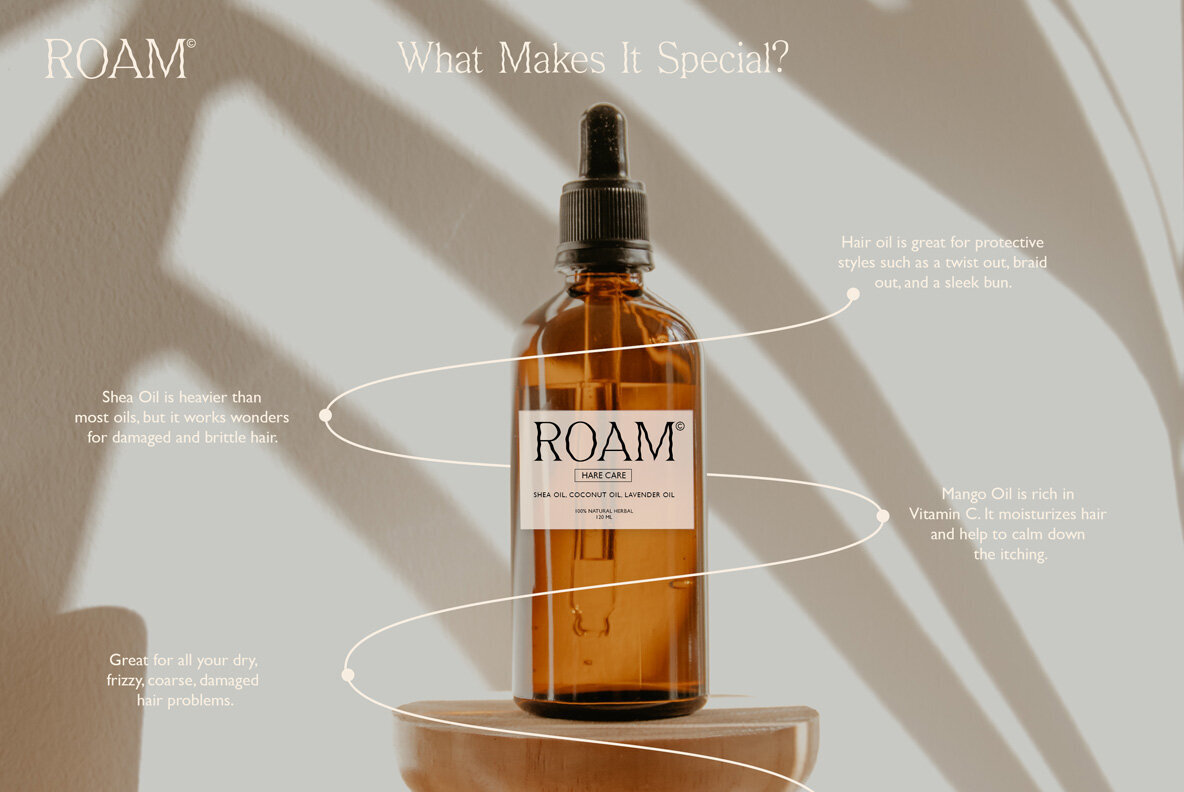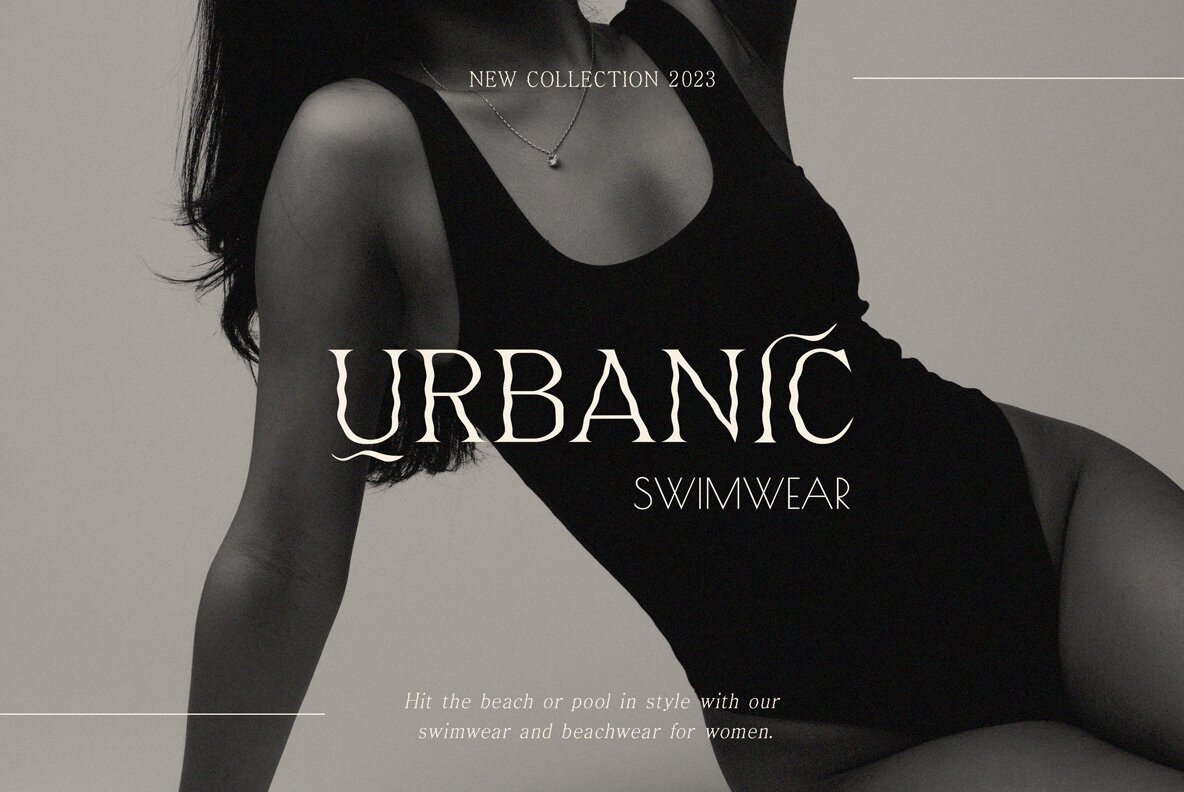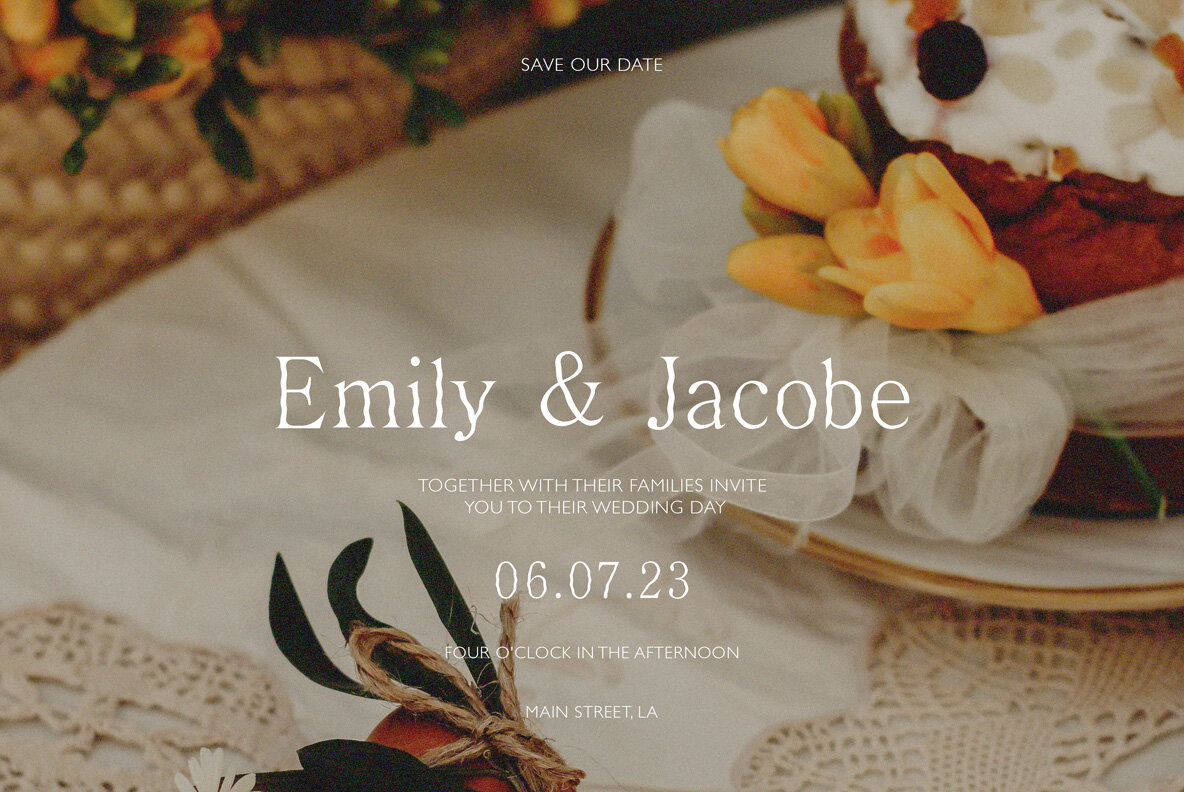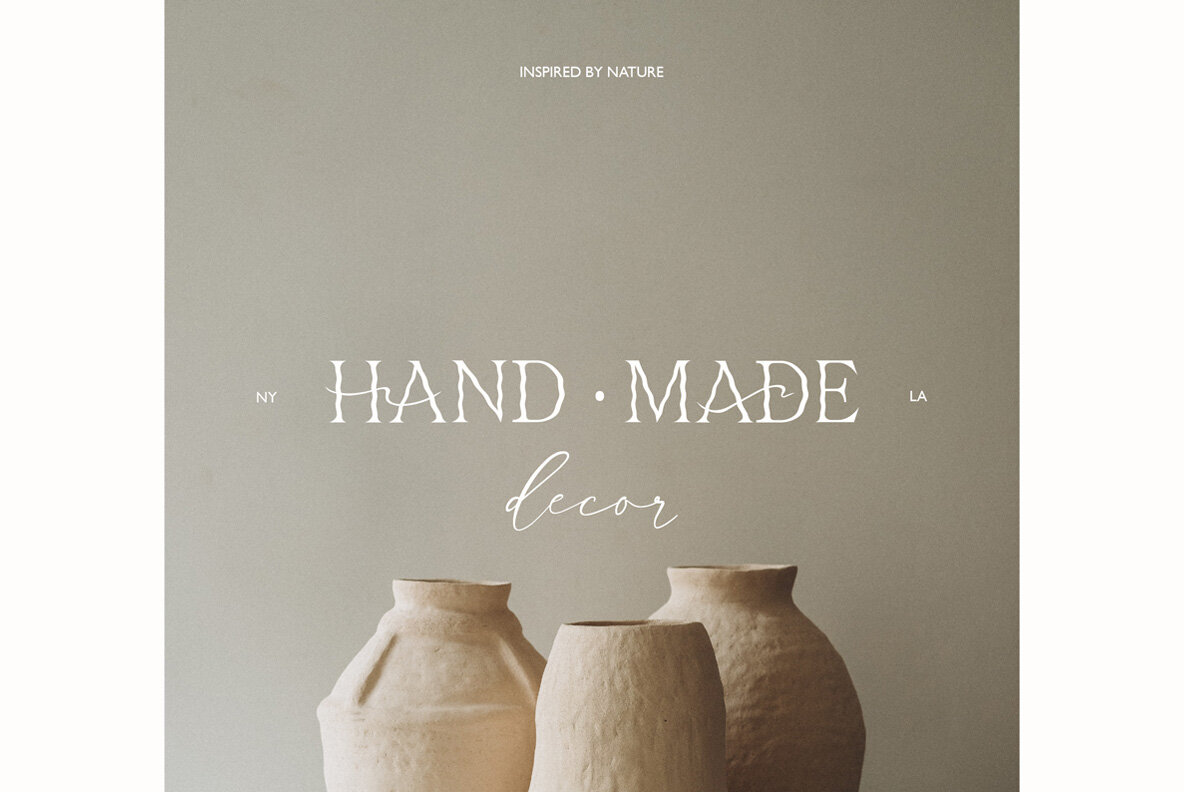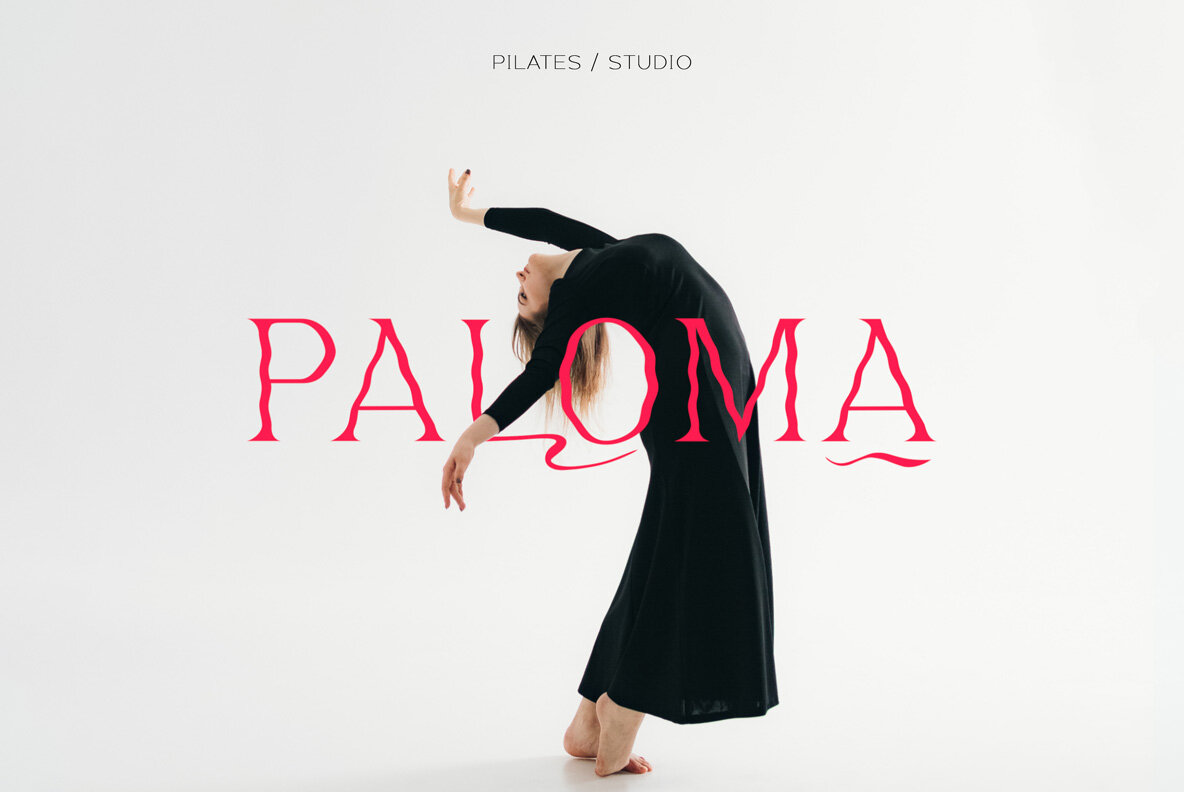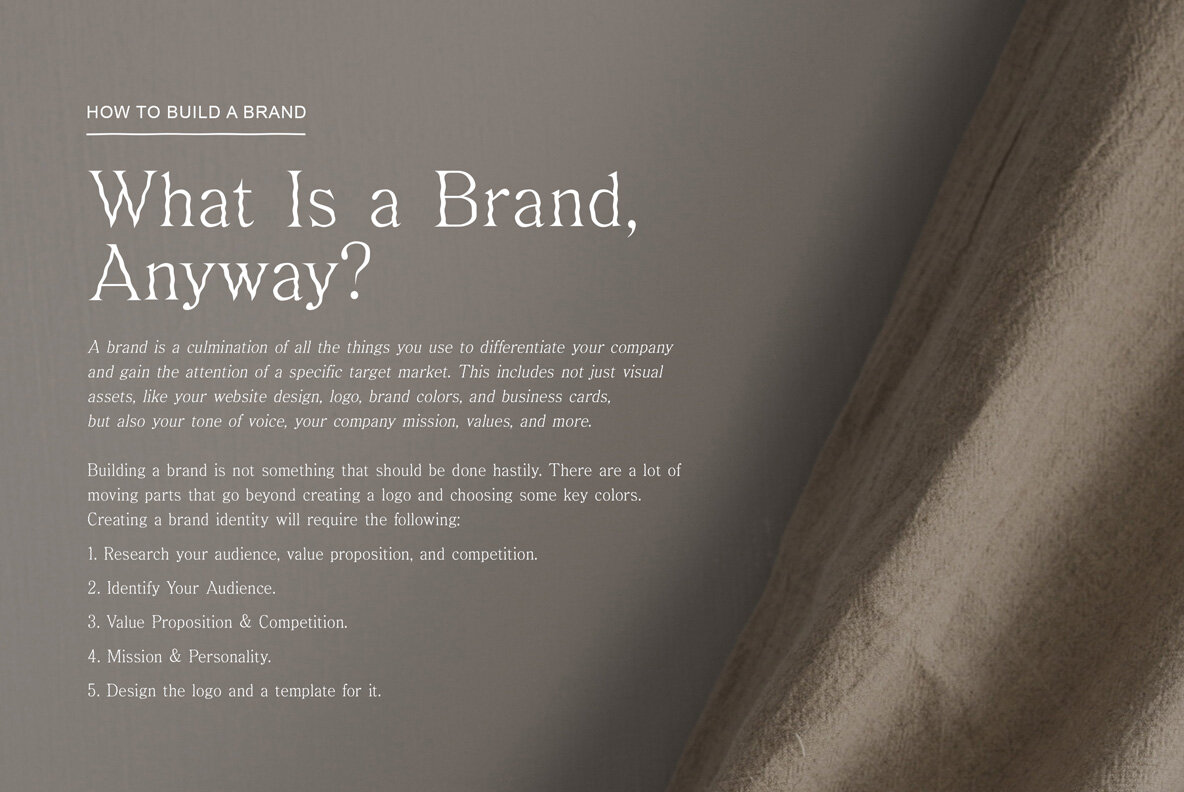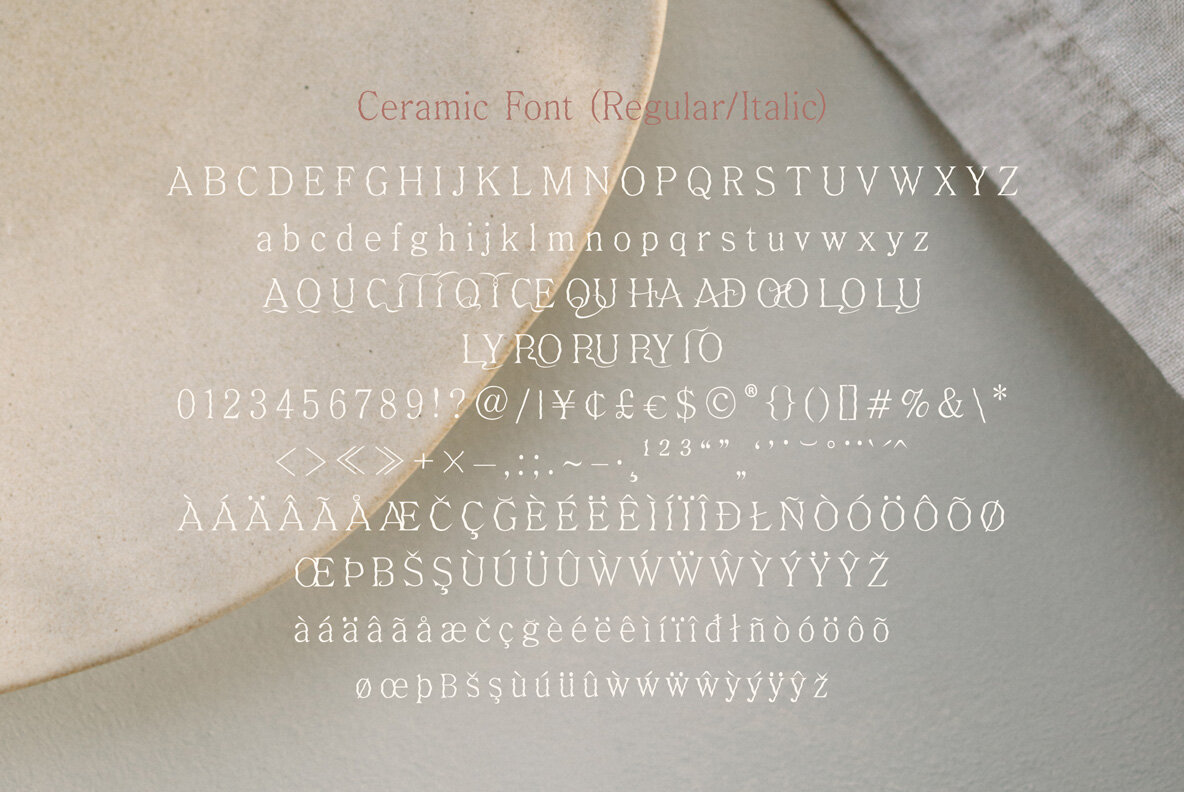
Ceramic Font
Discover a modern, elegant font adorned with exquisite curves, perfectly suited for a variety of creative projects. Whether you're working on handicraft branding, wedding invitations, a dance school, or a design studio, this font adds a touch of refinement to your creations. Available in both OTF and TTF formats, the font package includes a regular and italic version, offering you the flexibility to adapt to any design context. Immerse yourself in the graceful charm of this modern elegant font and watch as it breathes life into your projects, elevating them to new heights of sophistication. Create with confidence, knowing that the beauty of this font speaks for itself in the language of artful design.